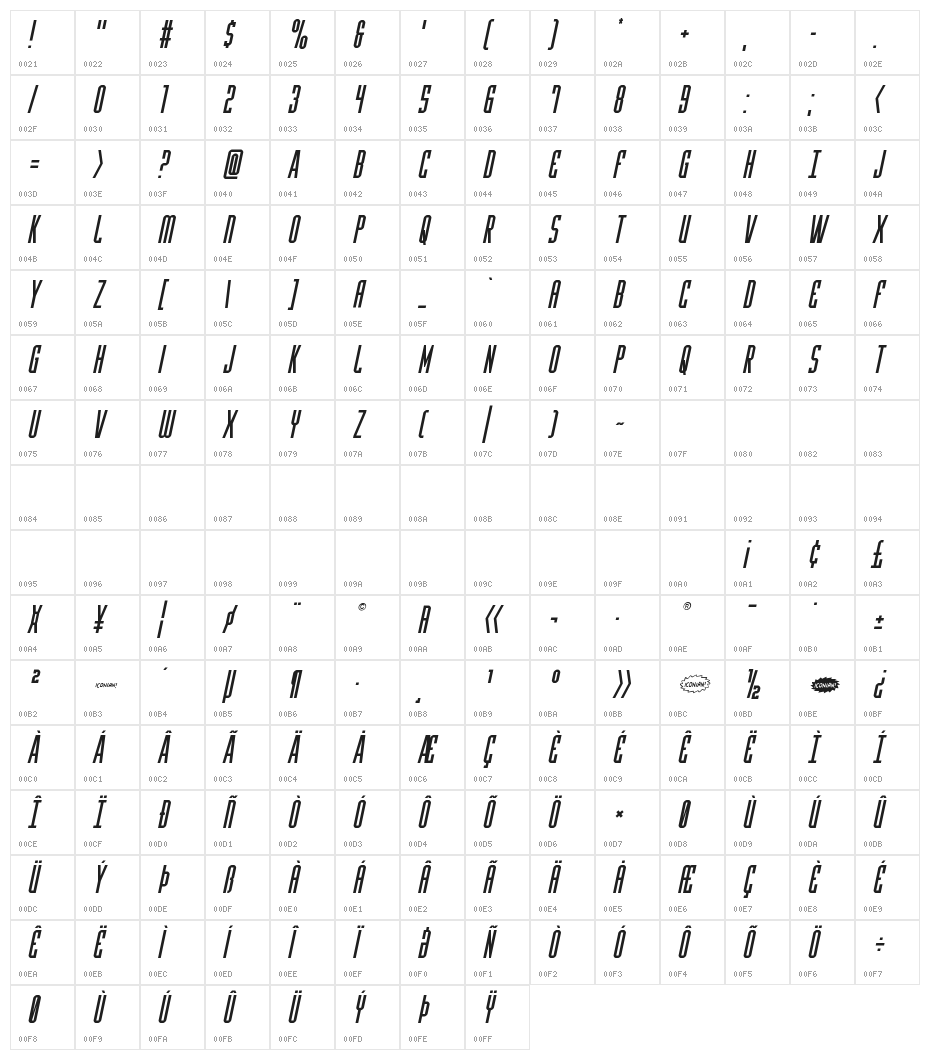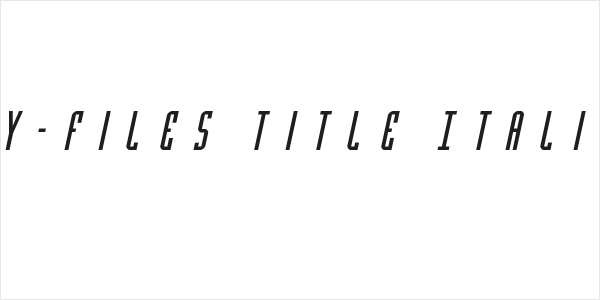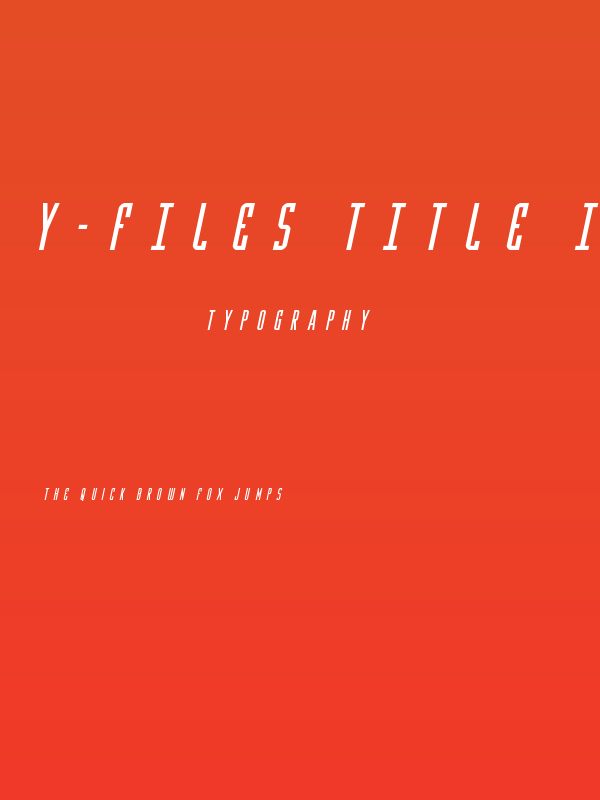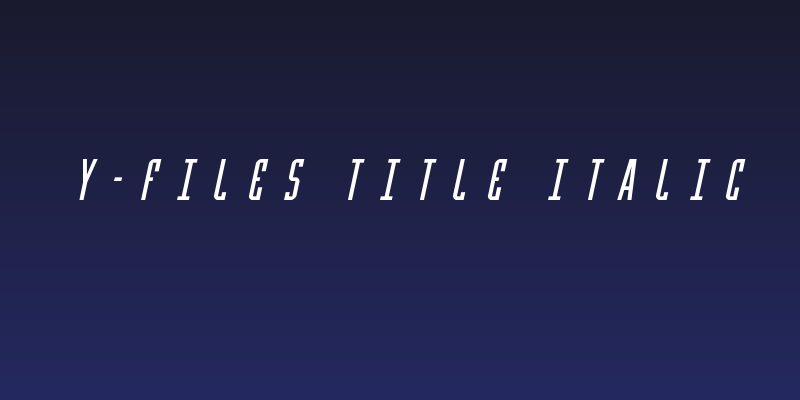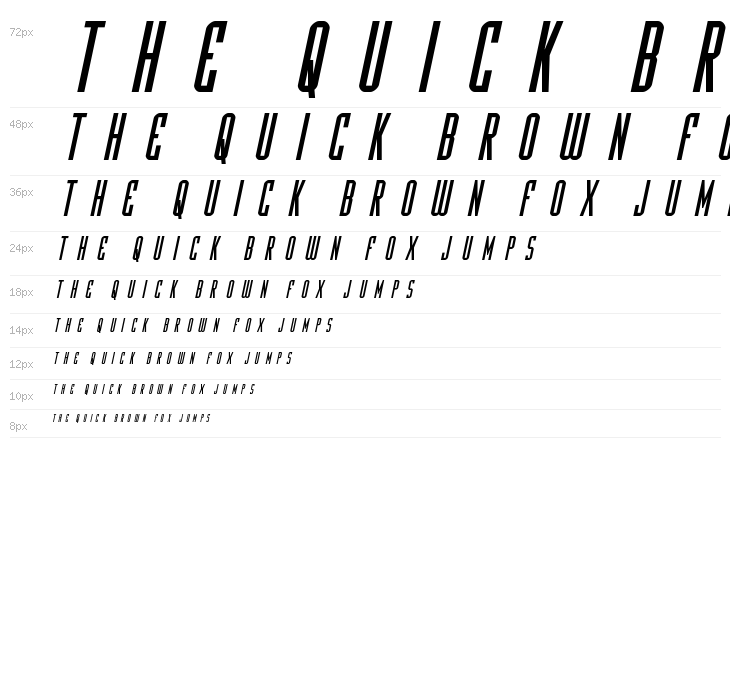
Y-Files Title Italic Font
Y-Files Title Italic Description
This font features a sleek, italicized design with a futuristic and dynamic appearance. The characters are elongated and slightly slanted, giving a sense of motion and speed. The strokes are consistent in width, providing a uniform look across all characters. The uppercase and lowercase letters maintain a cohesive style, with sharp angles and clean lines. The numerals and special characters follow the same design principles, ensuring a harmonious overall aesthetic. This font is ideal for projects that require a modern and energetic feel.
| Proposed Projects | Ideal for sci-fi themed designs, modern branding, sports team logos, and dynamic advertising campaigns. |